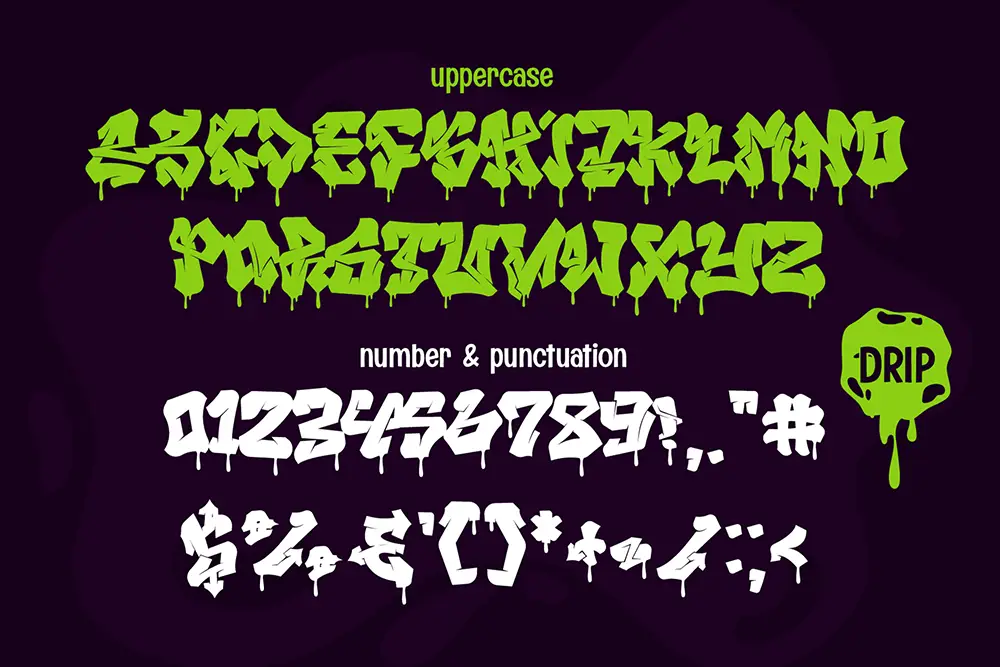
Meltrax – Dripping Graffiti Font for Bold Urban Designs
Typography can speak as loud as street murals, and nothing captures the raw energy of urban art like a dripping graffiti font. Meltrax – Dripping Graffiti Font is a bold, expressive typeface designed to bring the spray-paint aesthetic directly into your projects. With its dripping ink details and powerful street style, this font is perfect for logos, posters, album covers, social media graphics, and creative branding.
Graffiti has always been about rebellion and creativity, and Meltrax carries that DNA. Whether you’re designing streetwear-inspired branding or edgy digital artwork, this dripping graffiti font makes your typography feel alive, raw, and fearless.
Dripping Graffiti Font with Raw Personality
Meltrax is crafted to look like real spray paint on walls, complete with drips and uneven flow. This unique dripping graffiti font gives your design an authentic street art feel without losing readability. Its bold uppercase style ensures your message dominates the scene, while the dripping strokes create movement and attitude.
If you’re aiming for authenticity in graffiti-inspired projects, Meltrax is the dripping graffiti font you’ve been waiting for.
Key Features of Meltrax – Dripping Graffiti Font
- All Caps Style: Designed for bold and powerful headlines
- Multilingual Support: Extended Latin characters for international use
- Graffiti Drip Effect: Natural spray-paint look with dripping details
- High Impact Design: Perfect for posters, logos, and street-inspired branding
- Versatile Use: Works for both print and digital designs
Why Designers Love Meltrax
Designers love Meltrax because it combines authenticity with usability. Many graffiti fonts are too chaotic to use effectively, but this dripping graffiti font offers the perfect balance: street art personality with clean execution.
Here’s why it stands out:
- Authentic Urban Vibe: Realistic drip strokes capture true graffiti culture
- Bold Visual Impact: Perfect for making strong statements in logos and posters
- Professional Quality: Smooth kerning and multilingual support make it functional for global projects
- Creative Freedom: A font that inspires experimentation across branding, events, and digital media
Dripping Graffiti Font for Logos and Branding
Branding in today’s world requires attitude and originality. Meltrax as a graffiti font is ideal for edgy brands, music labels, extreme sports logos, and cultural movements. Its bold strokes instantly create a rebellious identity, making logos unforgettable.
Dripping Graffiti Font for Posters and Street Art
Posters demand attention, and Meltrax delivers raw impact. Whether you’re designing flyers for music events, protest art, or urban festivals, this dripping graffiti font ensures your message stands tall.
Its dripping style connects instantly with street culture, creating visuals that resonate with urban audiences and creatives.
Dripping Graffiti Font in Digital Media
Graffiti isn’t just on walls anymore—it lives online. Meltrax works perfectly as a graffiti font for YouTube thumbnails, Instagram campaigns, and album cover artwork. It bridges traditional street art with digital creativity, giving you a versatile design weapon for online presence.
- Font Name: Meltrax – Dripping Graffiti Font
- Character Set: All Caps + Numbers + Punctuation
- Multilingual Support: Yes
- Category: Dripping Graffiti Font
- Best Uses: Logos, Posters, Street Art, Digital Branding, Music Covers
Font Pairing Suggestions
Pairing Meltrax with the right typefaces enhances its power. We recommend:
- Darksht – Urban Graffiti Font for a raw and rebellious duo
- A clean sans serif to balance the dripping strokes for professional branding
These pairings ensure your projects capture both authenticity and readability.
Why Meltrax is the Dripping Graffiti Font You Need
Typography in street art needs to be fearless. Meltrax embodies that spirit. It’s more than just a graffiti font—it’s a design tool that channels rebellion, culture, and raw energy.
Designers who want their projects to stand out choose Meltrax for its authenticity and visual power. It’s graffiti in digital form, ready to make your message unforgettable.
Meltrax – Dripping Graffiti Font is the perfect typeface for creatives who want to capture urban energy and rebellious style. With all caps letters, dripping details, multilingual support, and versatile file formats, it’s ready for global projects.